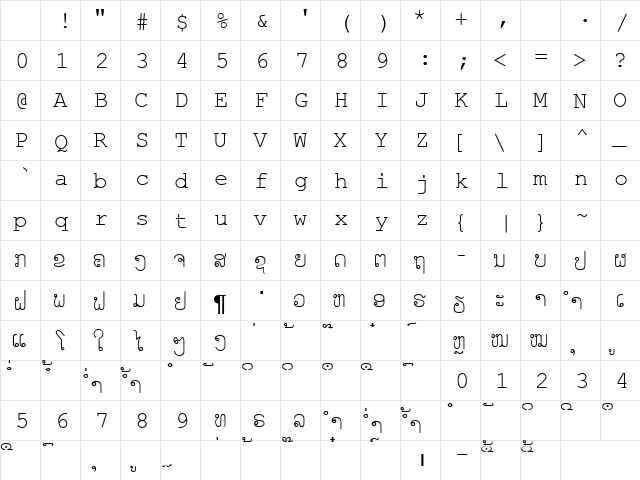
Alice4 Lao Regular Free Font
Alice4 Lao Regular
Design Context for Alice4 Lao
Alice4 Lao is a composed and adaptable typeface that performs quietly and consistently across a wide range of design contexts.